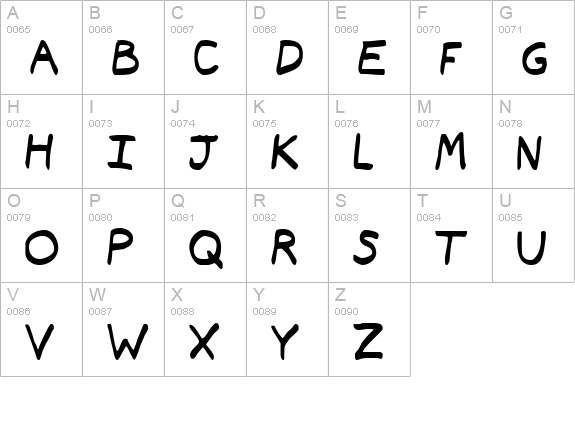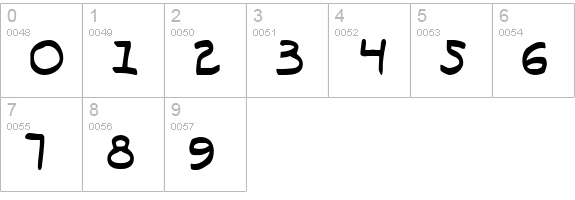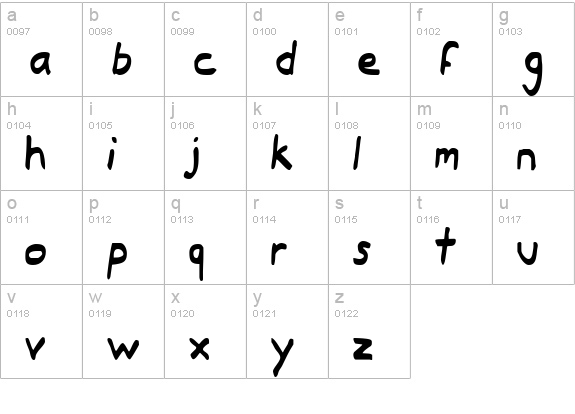
Typeecanoe Font Details
Typeecanoe font is a stunning display font that combines elegance and uniqueness in a remarkable way. With its stylish and contemporary design, this font is perfect for adding a touch of sophistication to any project. Whether you are designing a logo, creating a poster, or crafting a branding identity, Typeecanoe is sure to make a lasting impression. One of the best things about Typeecanoe font is that it is completely free to download. This means that you can enjoy all its amazing features and high-quality craftsmanship without spending a dime. You can easily access and download Typeecanoe font from FontsMarket.com, a trusted online platform for font enthusiasts. With its wide range of characters, including uppercase and lowercase letters, numbers, and punctuation marks, Typeecanoe font offers endless possibilities for creative expression. Its smooth curves and clean lines make it highly legible, ensuring your message is conveyed with clarity and impact. Typeecanoe font is not just visually appealing, but also highly versatile. It can be used in a variety of design projects, from print materials to digital media. Whether you are working on a website, an advertisement, or a social media post, Typeecanoe font will help you create a visually stunning and professional look. Don't miss out on this amazing opportunity to enhance your designs with the beauty of Typeecanoe font. Download it for free today at FontsMarket.com and unlock a world of creative possibilities.